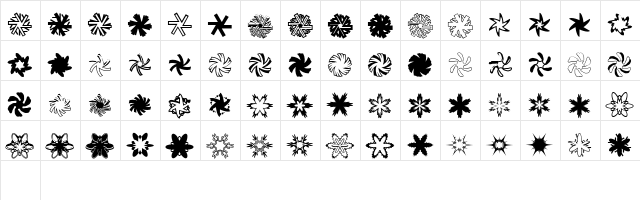
MiniPics-Snowflakes Roman
Design Context for MiniPics-Snowflakes Typeface
MiniPics-Snowflakes is a composed and adaptable typeface that performs quietly and consistently across a wide range of design contexts.